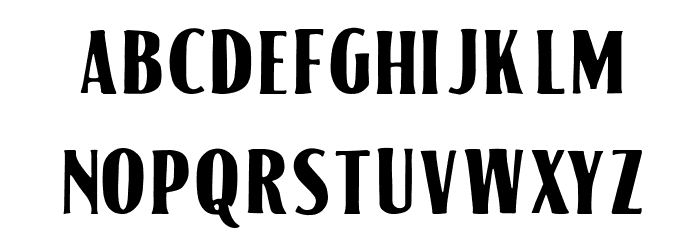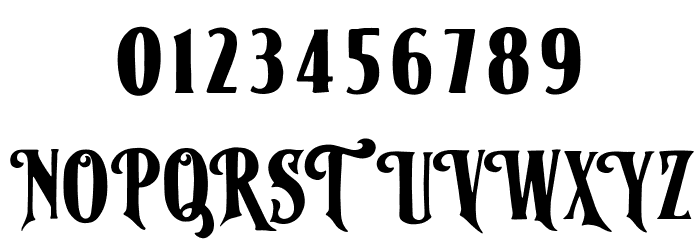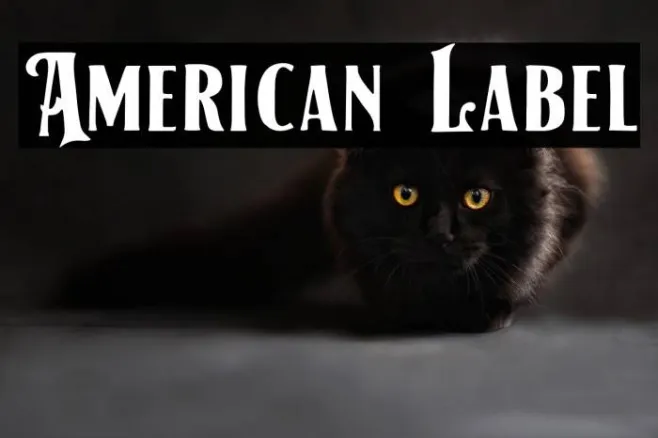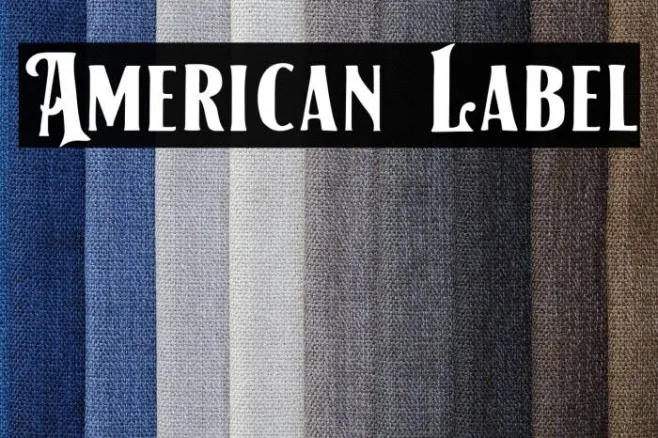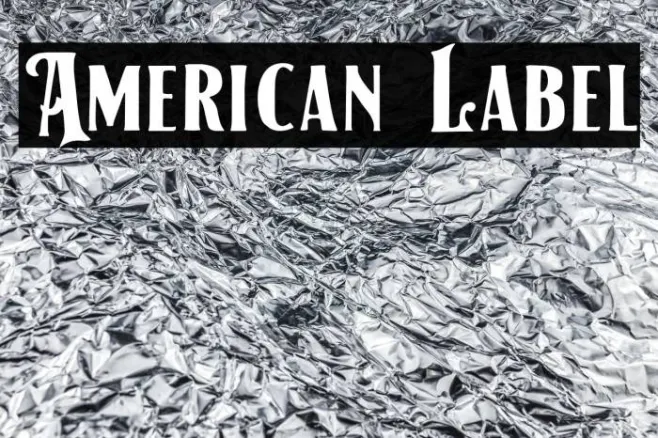
American Label Font
This font features a bold and decorative style with a vintage flair. The uppercase letters are characterized by their ornate serifs and unique flourishes, giving them a distinct and eye-catching appearance. The lowercase letters maintain a consistent style, with slightly less ornamentation, providing a balanced look. The numerals are bold and clear, matching the overall aesthetic of the font. The special characters are designed to complement the letterforms, maintaining the decorative theme. This font is ideal for projects that require a strong visual impact and a touch of elegance.
A bold, decorative font with vintage flair and ornate serifs.
- Font: American Label
- Proposed Projects: Ideal for branding, posters, signage, and any project needing a vintage or decorative touch.
- Overall Style: Vintage